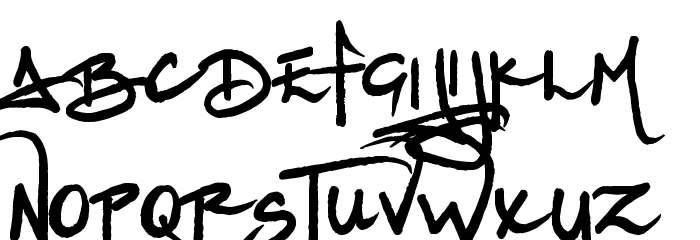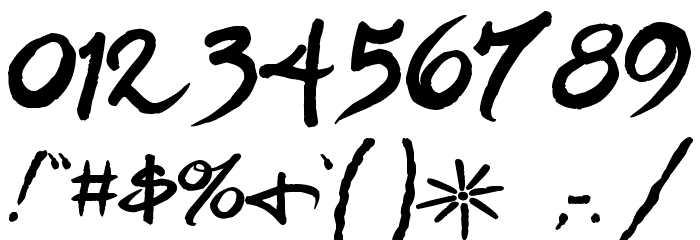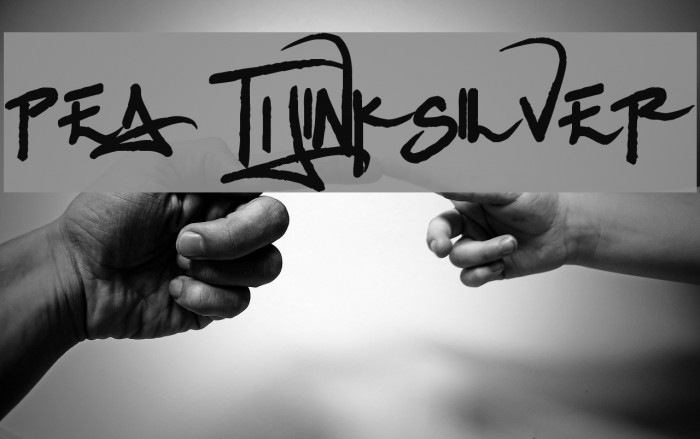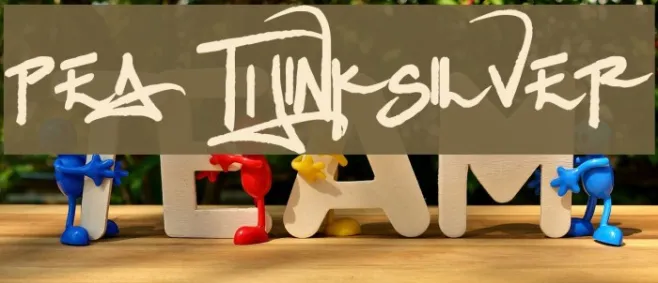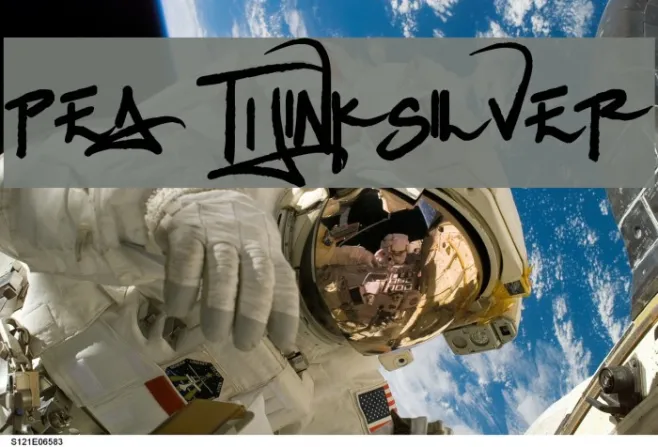
Pea Thinksilver Font
This font exudes a bold, expressive style with a handwritten flair, characterized by its dynamic and fluid strokes. The letters are crafted with a sense of movement, giving them an artistic and personal touch. The uppercase and lowercase letters maintain a consistent style, with some letters featuring unique flourishes that add to the overall aesthetic. The numbers are equally expressive, maintaining the same energetic style as the letters. Special characters are included, each designed to complement the font's overall look. This font is ideal for projects that require a personal, artistic touch, such as invitations, greeting cards, or creative branding.
A bold, expressive handwritten font with dynamic strokes and artistic flair.
- Proposed Projects: Ideal for creative projects like invitations, greeting cards, artistic branding, and personal notes.
- Use Case: Logos, Headlines, Artistic projects